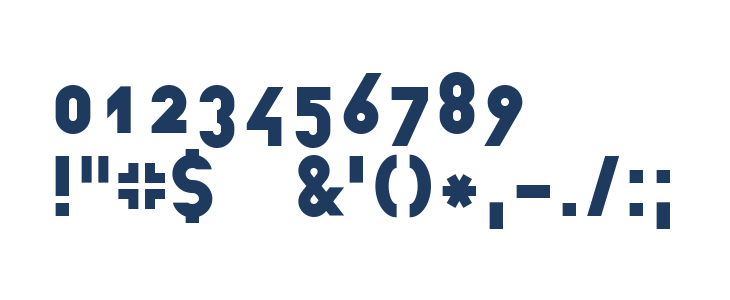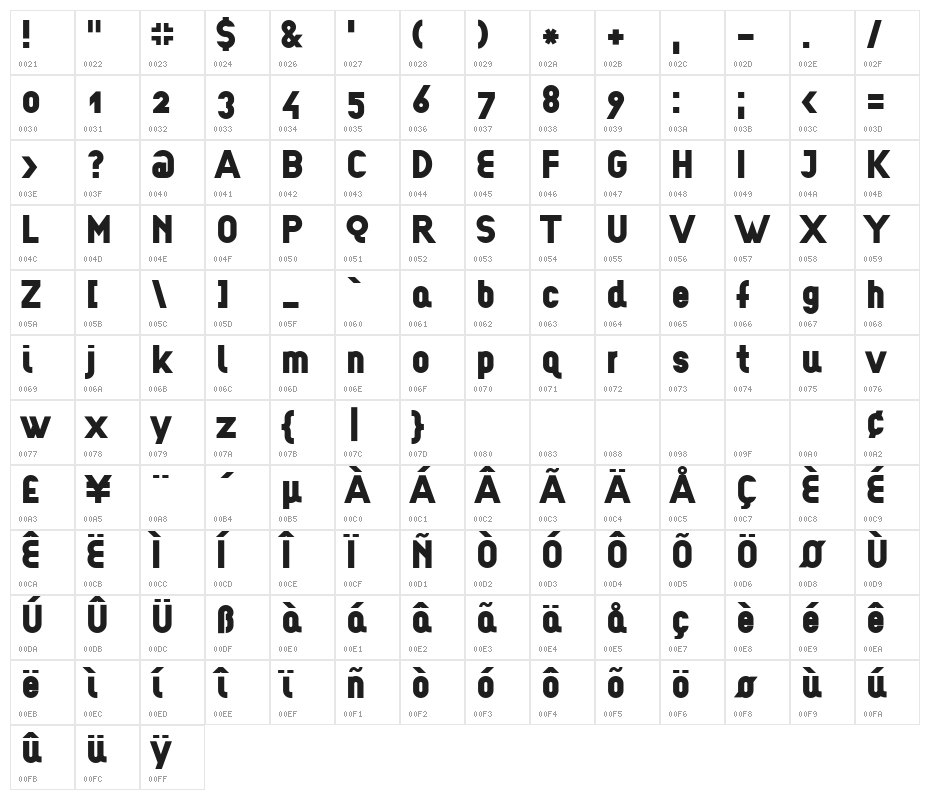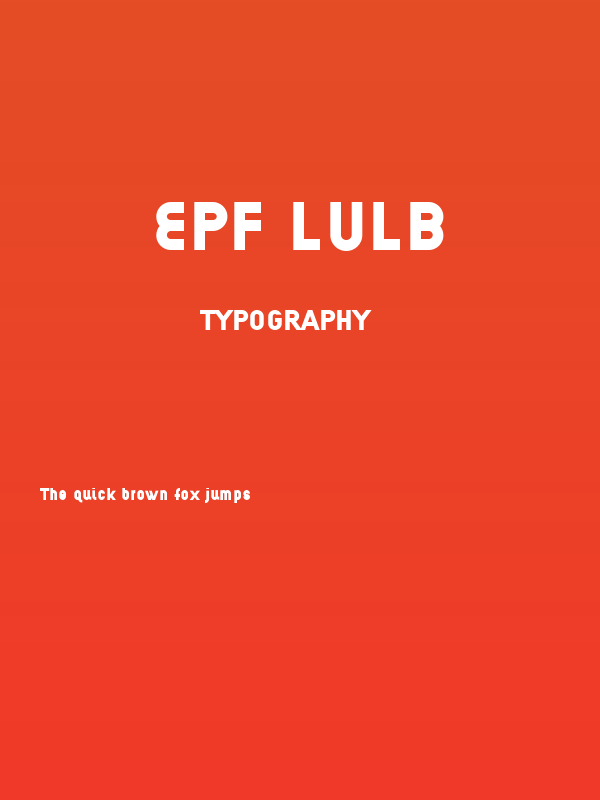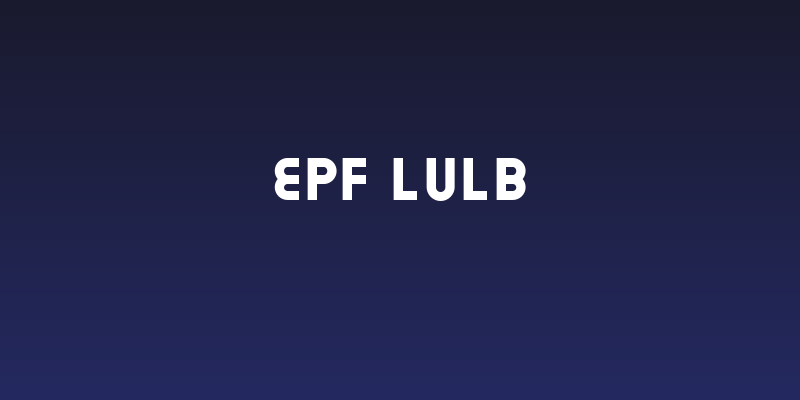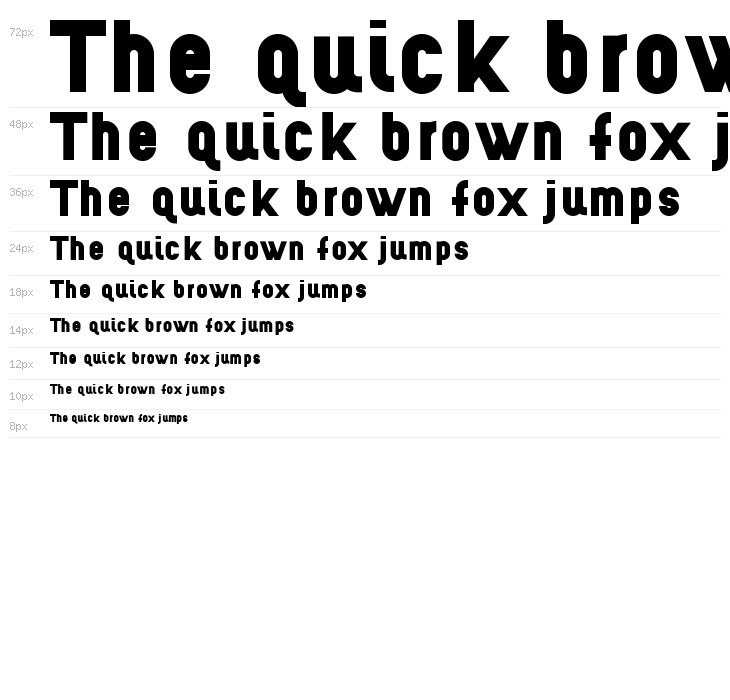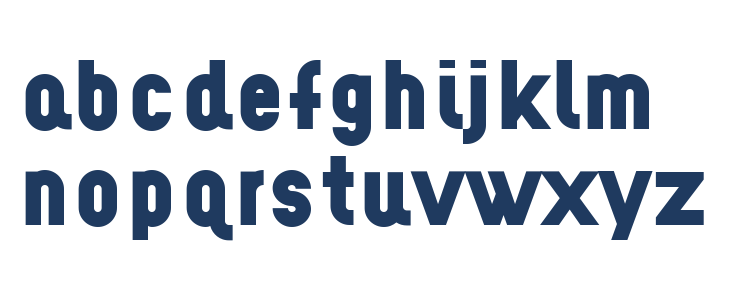
EPF LULB Font
EPF LULB Description
This font features bold, geometric letterforms with a strong, modern aesthetic. The uppercase letters are uniform in height, with a consistent stroke width that gives a clean and robust appearance. The lowercase letters maintain the same geometric style, with rounded edges that add a touch of softness to the overall design. The numerals are equally bold and geometric, ensuring readability and consistency across different uses. Special characters are designed to match the boldness and geometric style of the alphabet, making them suitable for a variety of applications. This font is ideal for projects that require a strong visual impact, such as branding, advertising, and headlines.